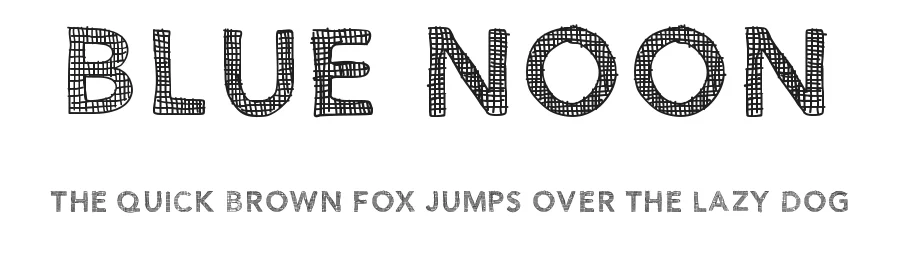
About Savenir Sans Font
PutraCetol Studio
| Designer | Putra Novembria Candra Kusuma |
Savenir Sans ships with 1 OpenType feature you can switch on in apps that support them (Illustrator, InDesign, Affinity, Figma, CSS font-feature-settings).
Savenir Sans supports 216 languages.
Savenir Sans Font is a decorative font that shines as a display or heading face. Pair it with a clean sans-serif or serif font for body text β the contrast creates a clear hierarchy while the two styles stay balanced and easy to read.